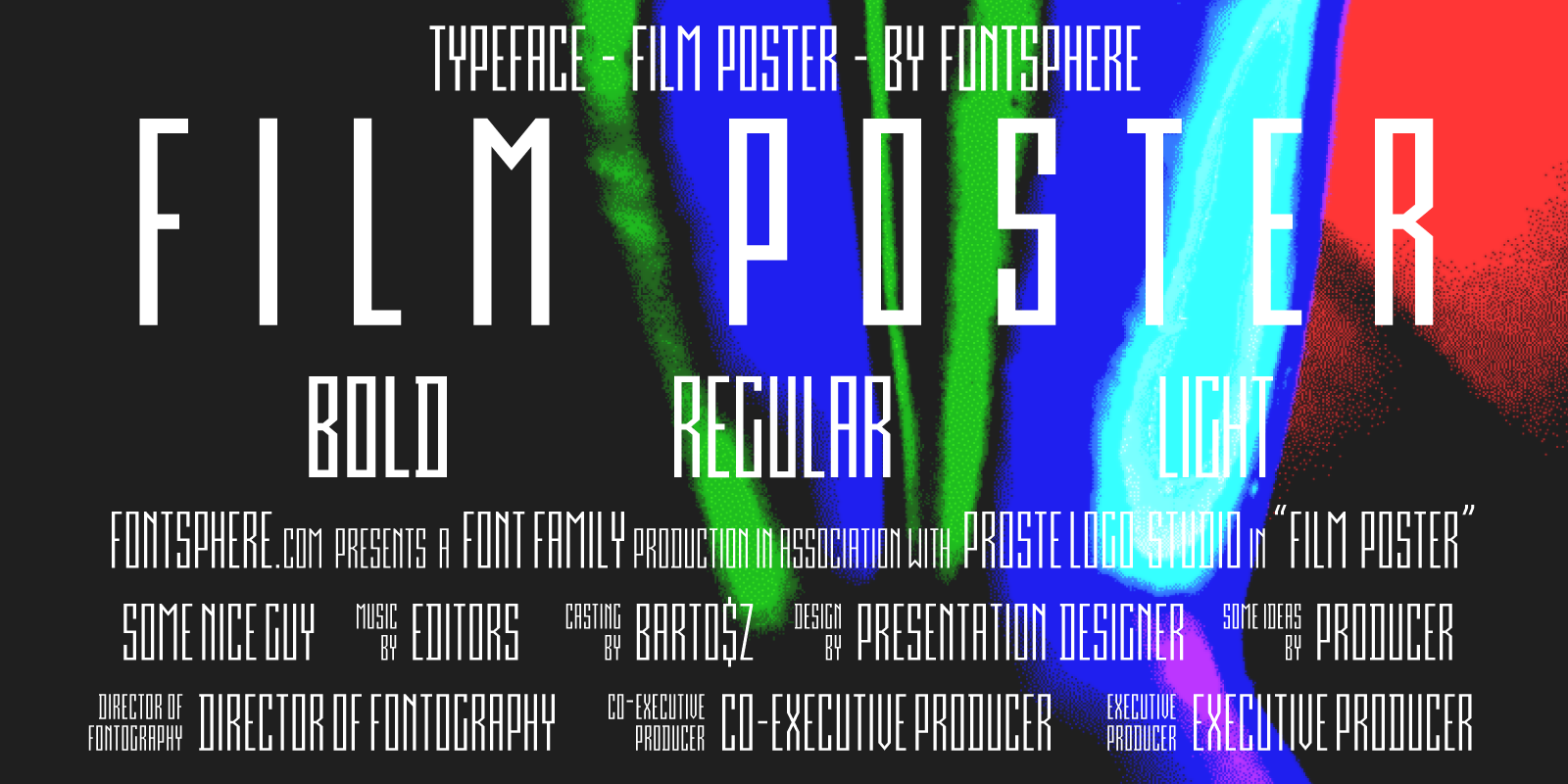
Film Poster Font is a commanding and visually dynamic typeface, perfectly suited for projects that demand the impactful presence of a cinematic title. Imagine it dominating the marquee of a blockbuster movie poster, adding a dramatic and compelling edge to independent film branding, or making an unmissable statement on trailers and promotional materials for television series. It's also an excellent choice for crafting striking video game titles, designing impactful merchandise for entertainment franchises, or bringing a powerful, evocative vibe to digital content and streaming platform interfaces. If you're looking to convey suspense, excitement, and an undeniable sense of epic scale, Film Poster Font is an outstanding selection.
What makes Film Poster Font so exciting? It’s its unparalleled ability to capture the essence of various film genres—from the gritty realism of action thrillers to the classic elegance of Hollywood dramas—all while maintaining robust readability. This font often features bold strokes, distinctive letterforms, and a presence that commands attention, making it ideal for display purposes where strong visual impact is paramount. Despite its often stylized nature, Film Poster Font is meticulously designed to ensure your message is delivered with both clarity and significant emotional resonance. Designers will appreciate its versatility in creating visuals that are both aesthetically compelling and deeply memorable, making it a go-to choice for projects that need to tell a story with a powerful typographic voice.
The Film Poster Font family is typically designed to maximize its formidable and distinctive aesthetic. While it might primarily feature a strong Regular or Bold weight that perfectly embodies its unique style, you could find variations that enhance its utility, such as condensed styles for intense headlines, or slightly wider versions for a more expansive feel. Some variations might also include distressed or textured elements to add a grittier, more authentic cinematic quality. These variations ensure that Film Poster Font maintains its cohesive and high-impact visual identity across different design applications, from monumental titles to supporting text that still carries significant weight. Discover the captivating power of Film Poster Font Free Download and infuse your designs with an unforgettable sense of cinematic grandeur.